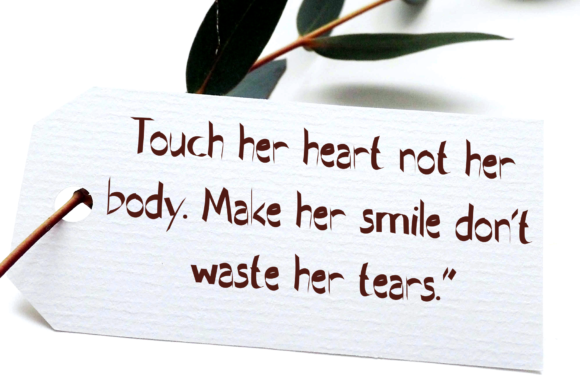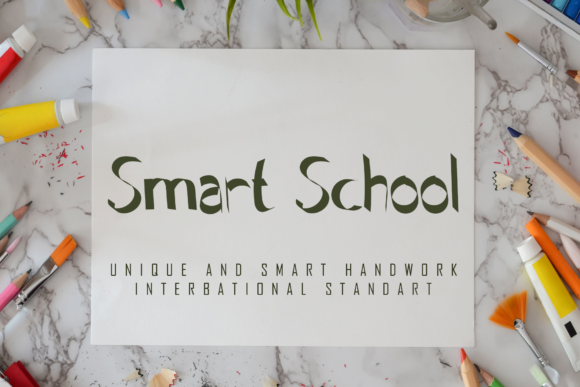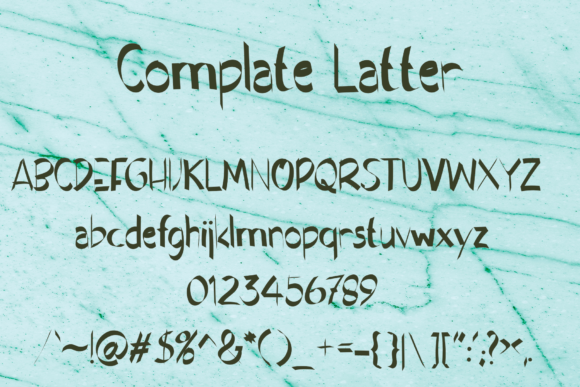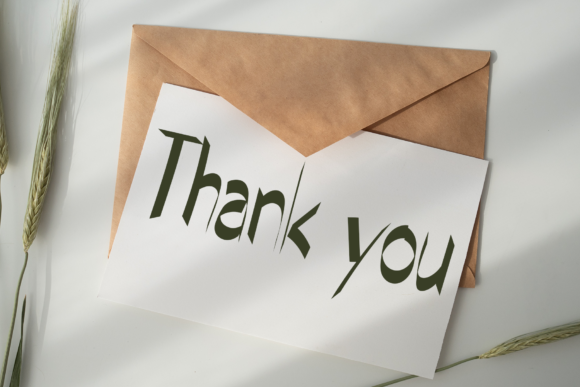
Monogram Font
About Monogram Font
Monogram is a natural and lovely handwritten font. Designed with incredible elegance and poise, this font will elevate each of your creations!